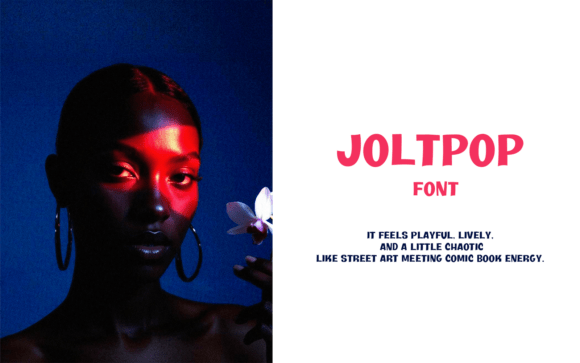
Introduction to Joltpop Regular 0127 25 Font
Fuel your designs with Joltpop—a font that hits with flavor and attitude.
Joltpop is a playful display font with bold, quirky letterforms that radiate energy and creativity Its organic, hand-drawn strokes and slightly irregular shapes give it a casual yet modern feel, perfect for projects that need to grab attention with personality.
Key Features of Joltpop Regular 0127 25 Font
Why Choose Joltpop Regular 0127 25 Font?